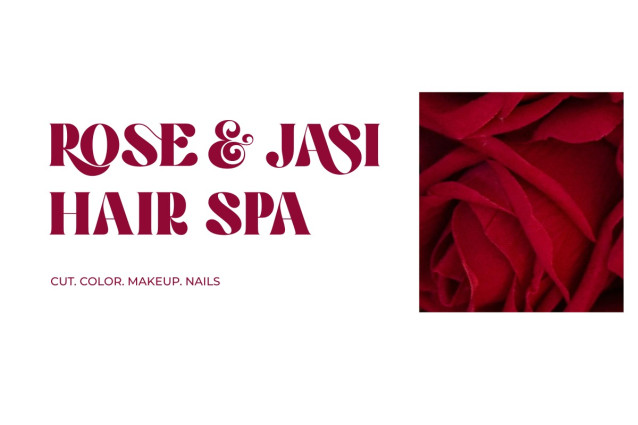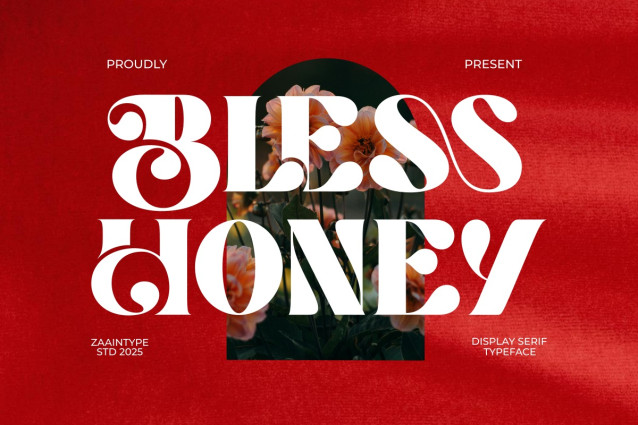
Bless Honey Font
Bless Honey Font is a charming serif typeface that blends timeless elegance with a soft, graceful touch. Designed with refined contrast and smooth curves, it evokes a sense of warmth and sophistication — perfect for branding, editorial designs, packaging, and high-end fashion. Each letter carries a delicate yet confident presence, making Bless Honey a graceful companion for projects that seek both beauty and character